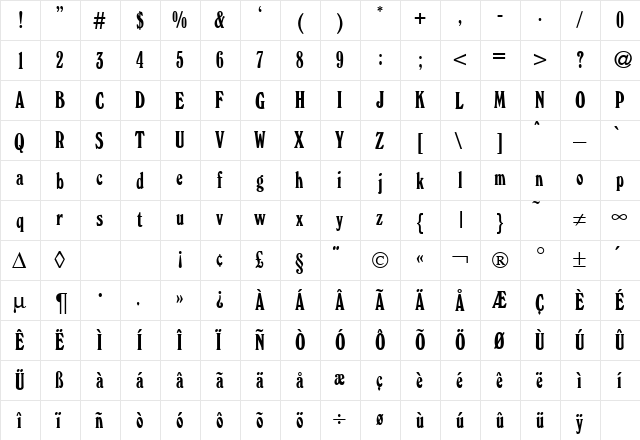
WindsorCond DB Bold
Design Context for WindsorCond DB Typeface
WindsorCond DB is a composed and adaptable typeface that performs quietly and consistently across a wide range of design contexts. Its bold stroke weight gives it real presence on the page. The condensed width makes it efficient for tight spaces without sacrificing legibility.